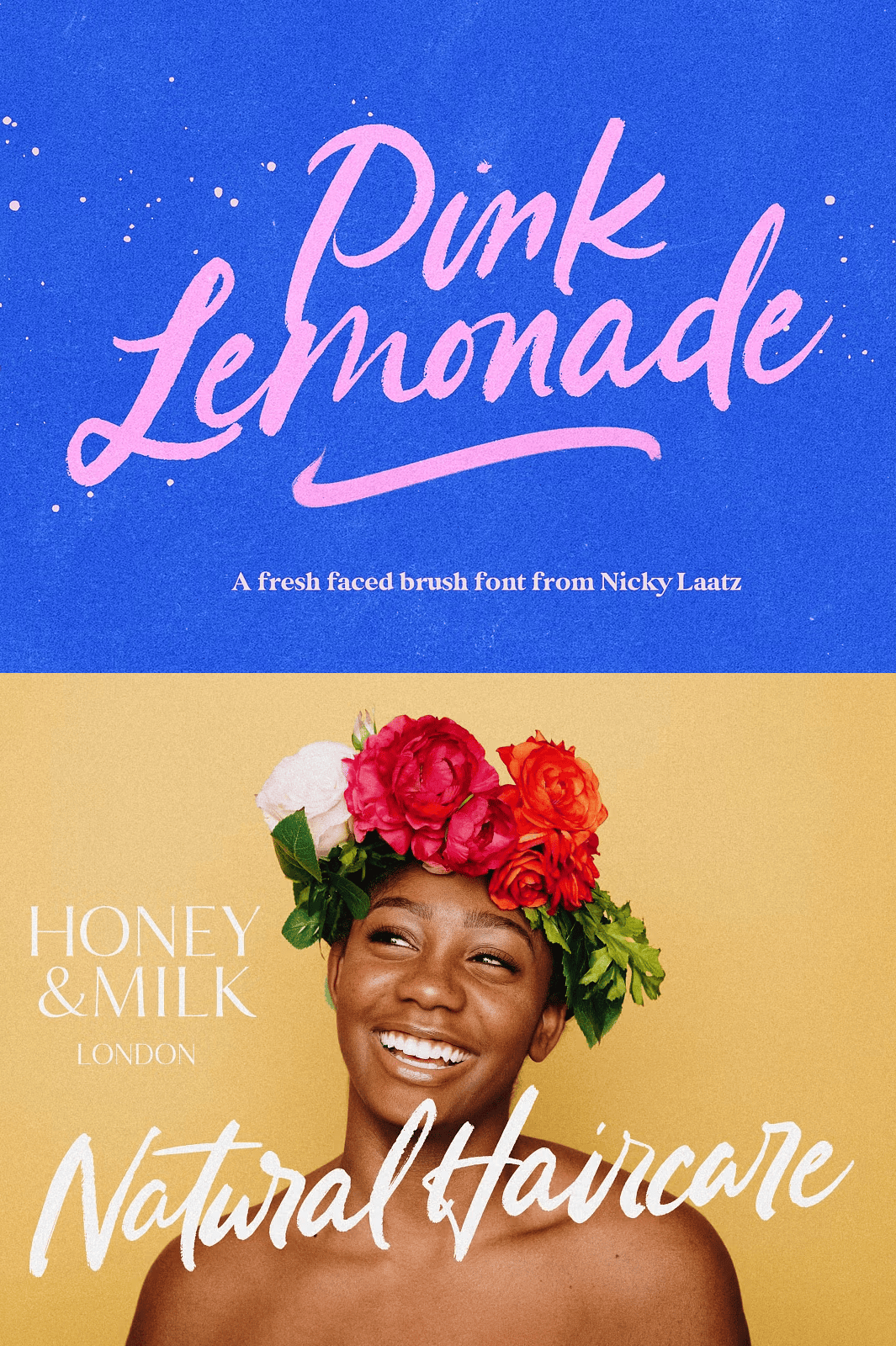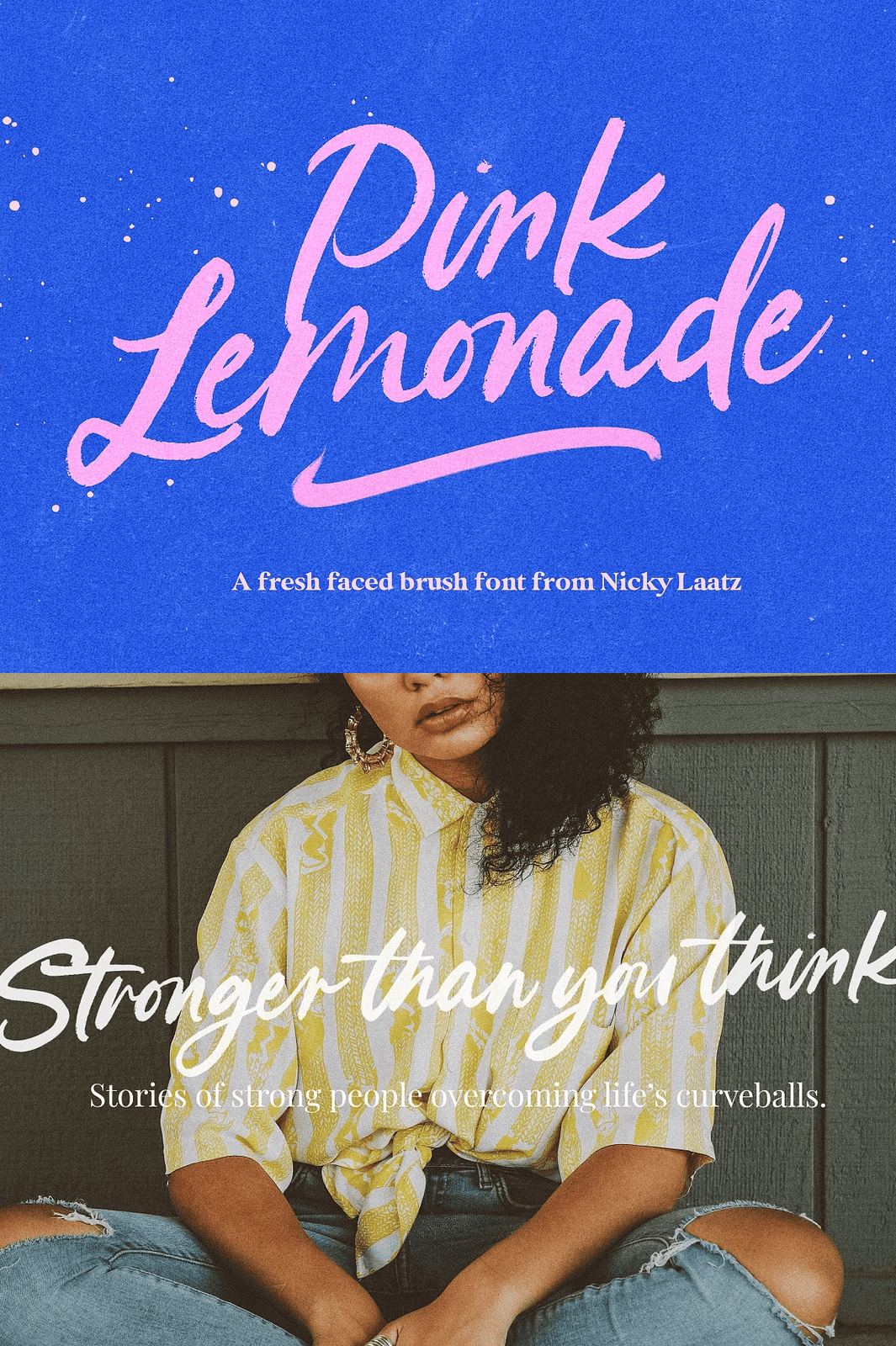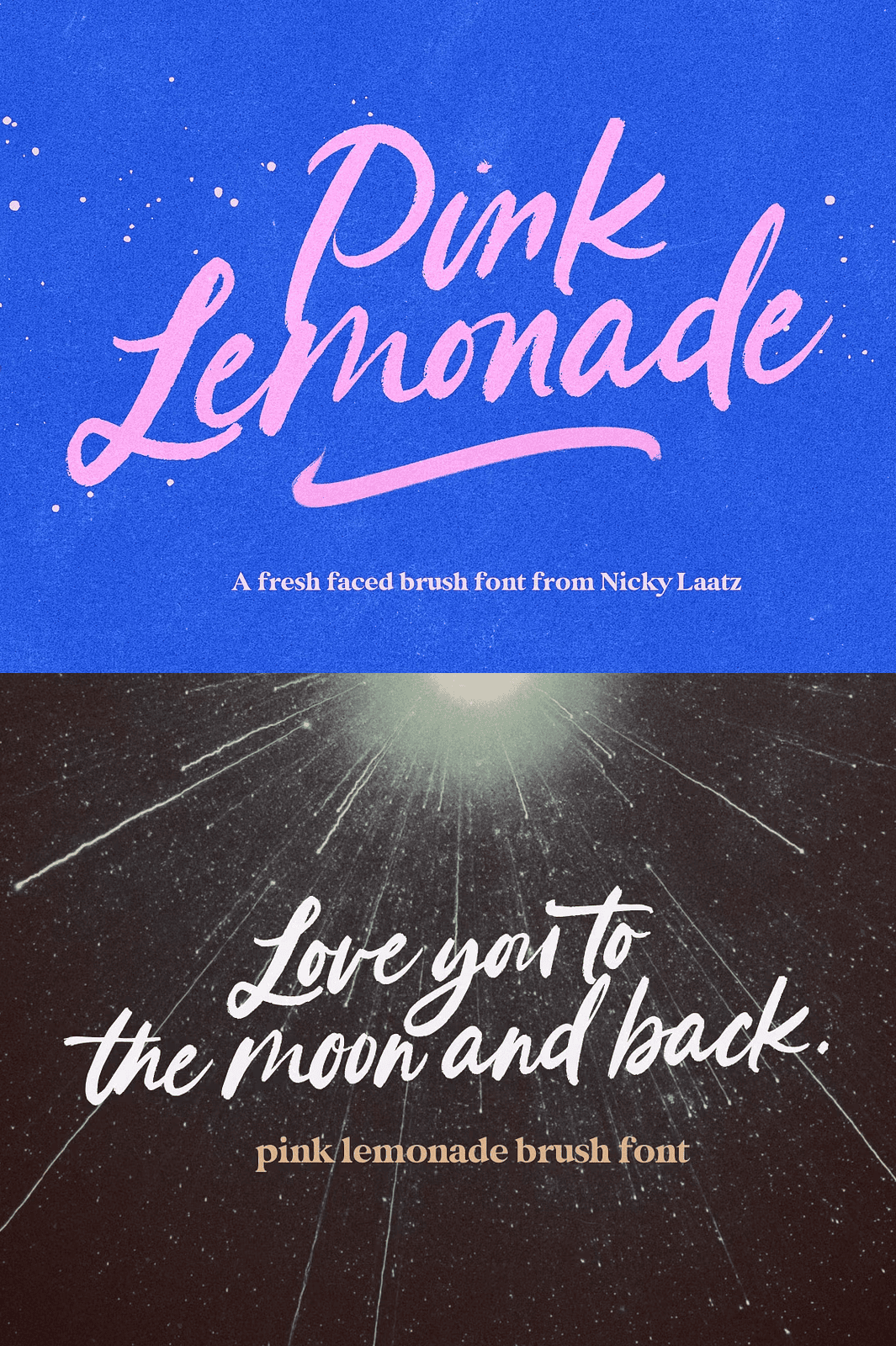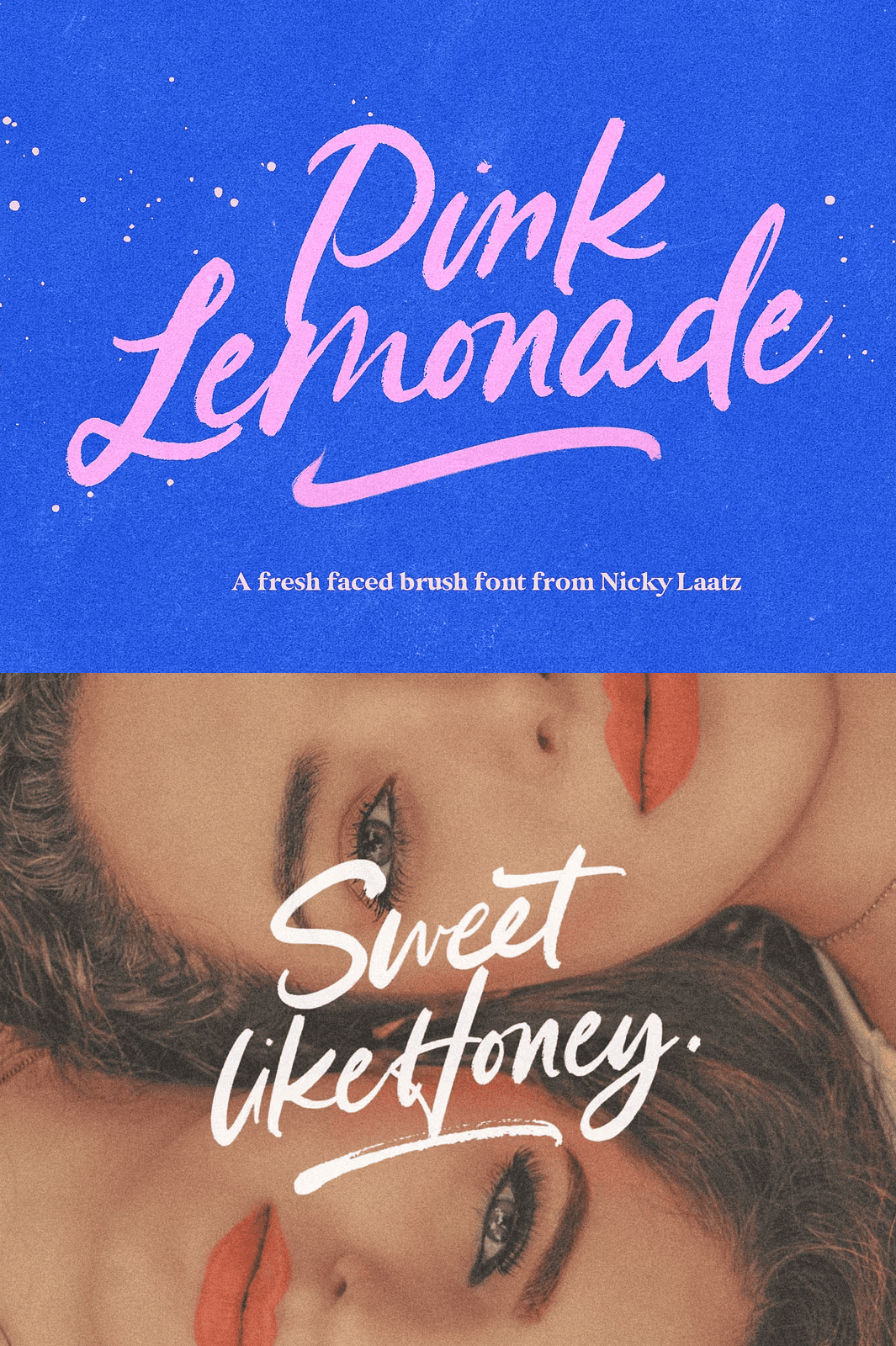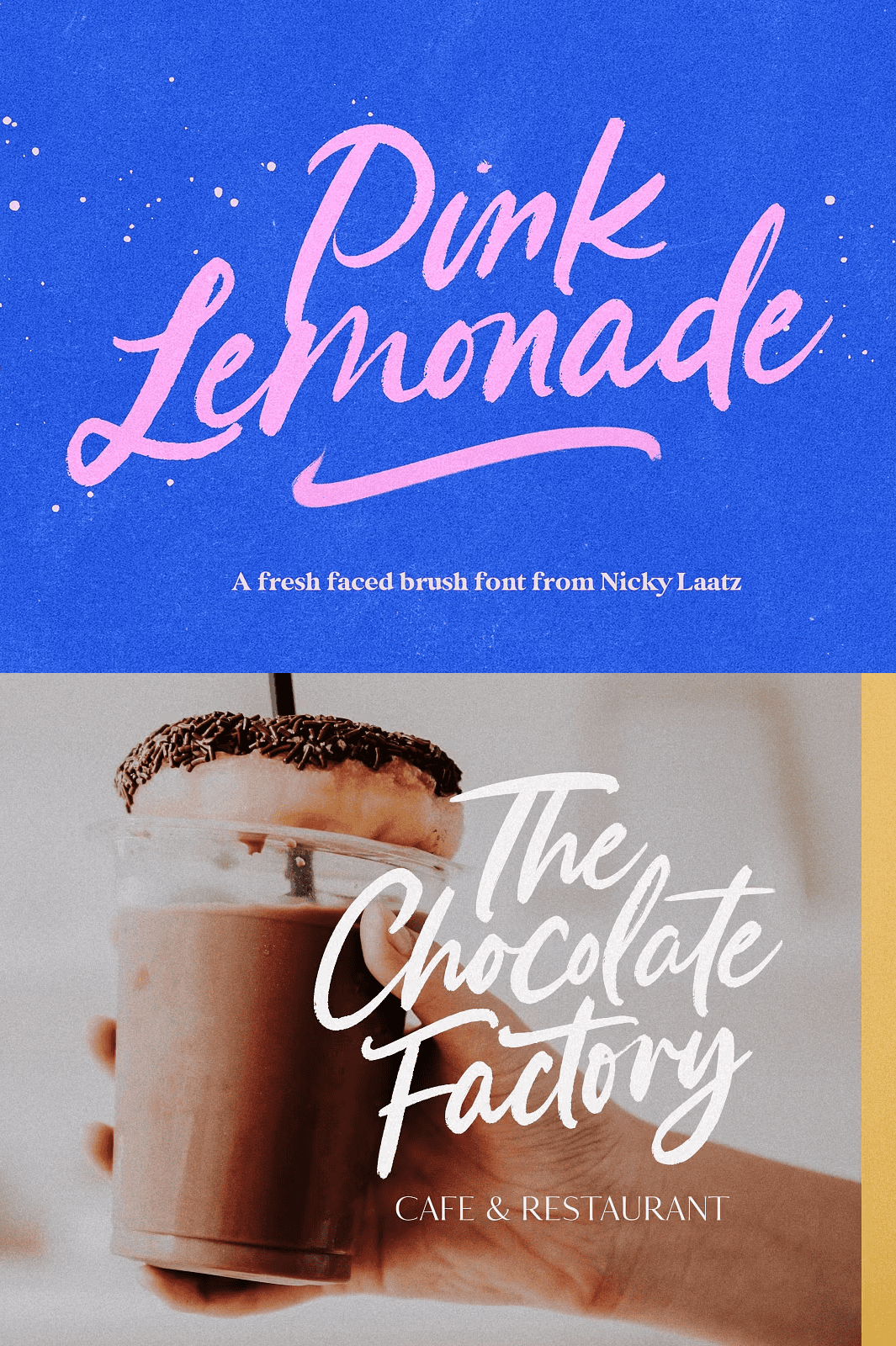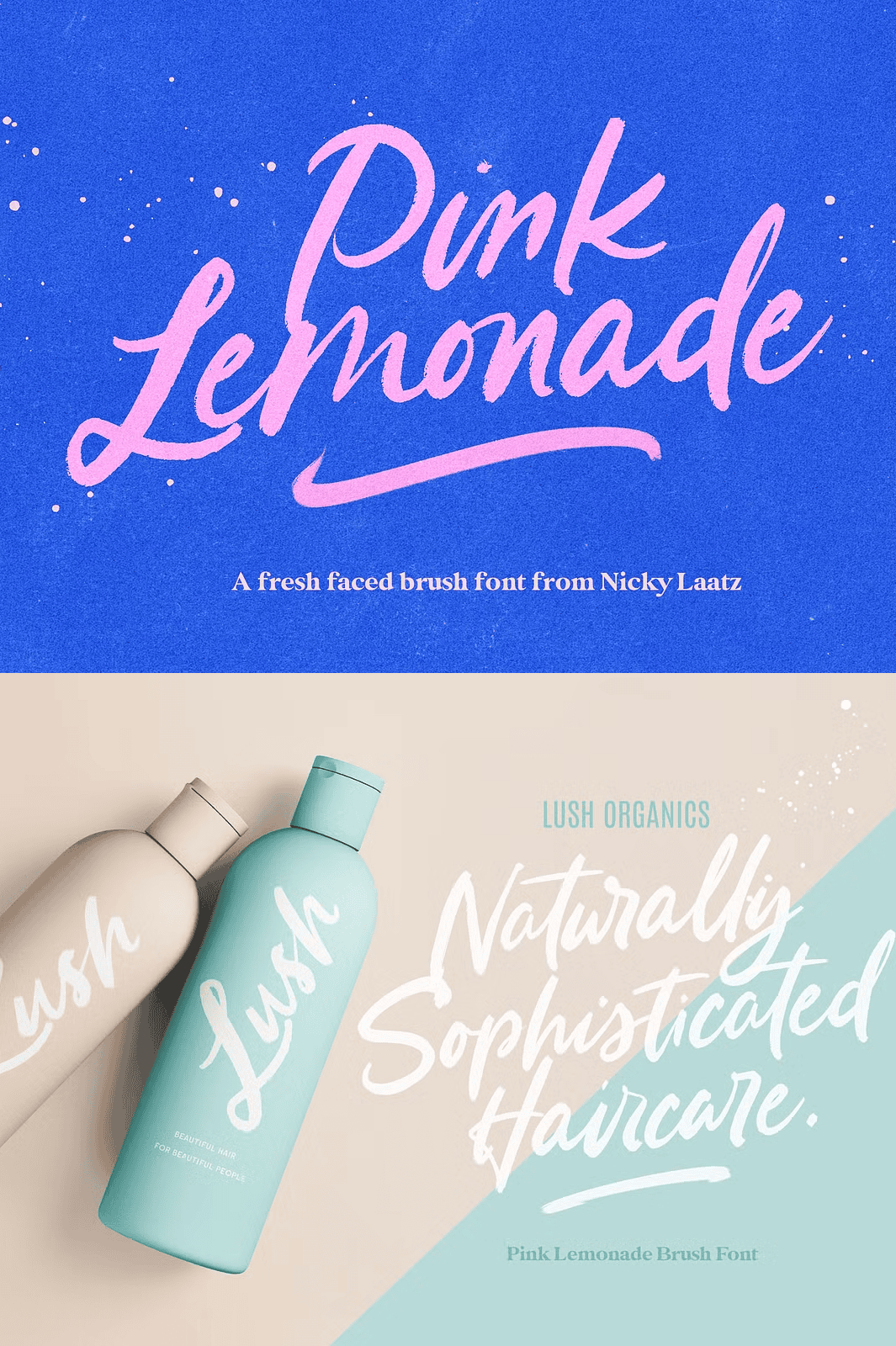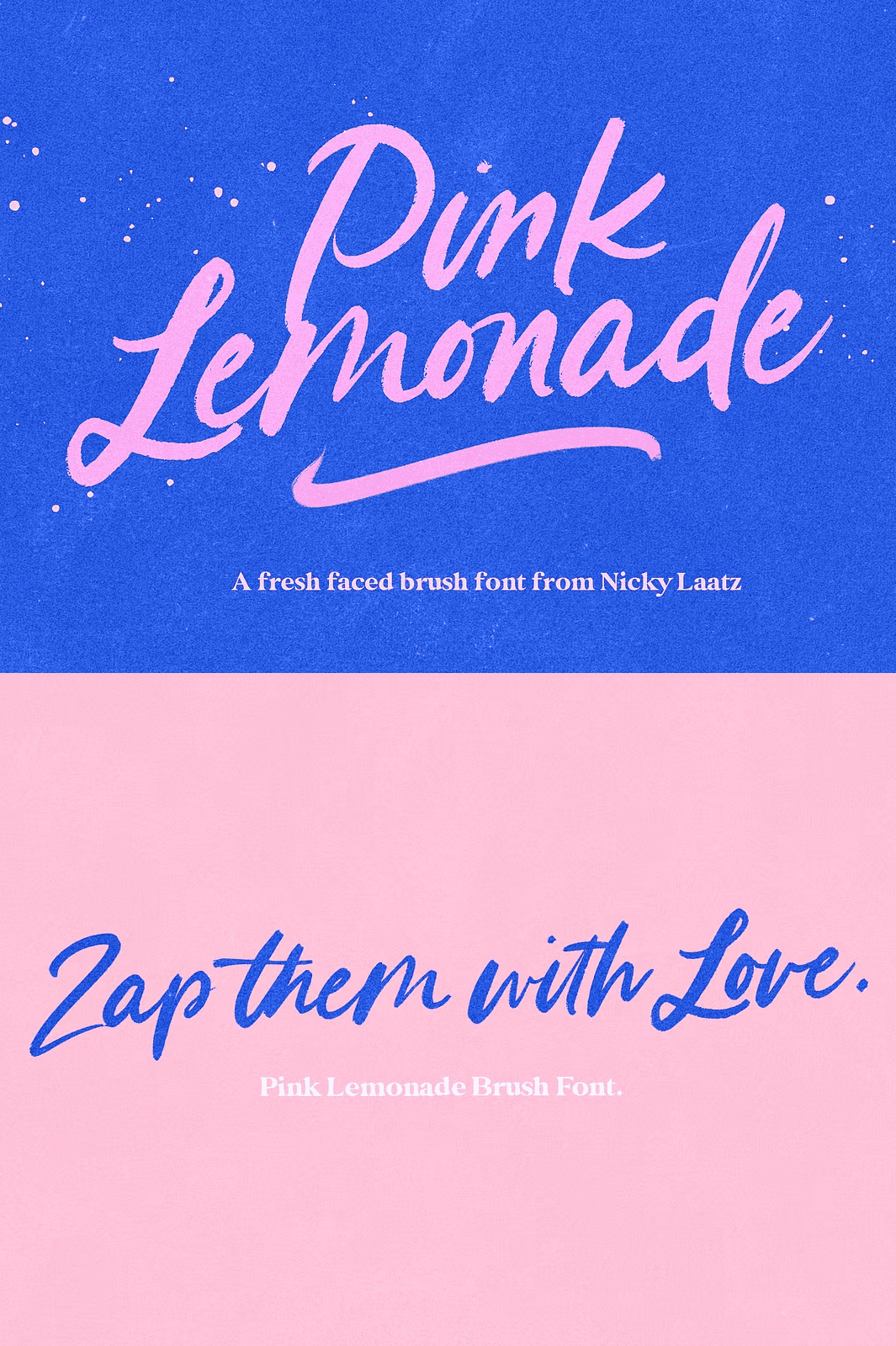
Pink Lemonade Brush Font
Elevate Your Brand with a Fresh, Hand-Painted Aesthetic
Inject vibrant energy into your creative projects with **Pink Lemonade**, a strikingly bold brush font designed to mimic the raw, expressive motion of real brush lettering. This isn’t just a typeface—it’s a visual statement. With its curvy, playful character and delicate texture left intentionally in place, Pink Lemonade brings a tactile, organic feel that turns static text into dynamic art. Whether you’re crafting a headline for a music album, designing packaging for a skincare line, or building a bold website banner, this font ensures your message doesn’t just get read—it gets noticed.
Each stroke reflects the spontaneity and rhythm of hand-drawn expression. The subtle imperfections in pressure, line width, and texture deliver authenticity, making your designs feel personal, energetic, and undeniably fresh. Say goodbye to sterile, predictable fonts—Pink Lemonade thrives where creativity runs wild.
Unleash 45 Natural-Looking OpenType Ligatures
One of Pink Lemonade’s standout features is its collection of **45 meticulously designed OpenType ligatures**. These intelligent character combinations eliminate the robotic feel of standard fonts, creating the illusion that your words were painted in real time like a master artist at work. The ligatures naturally flow between letters, adding rhythm, balance, and visual interest that elevate even simple phrases into works of art.
Switch between ligature-on and ligature-off modes to explore dramatically different styles:
– Turn on ligatures for a fluid, artistic, hand-lettered effect.
– Disable them for a tighter, more structured look with subtle texture.
This dual flexibility gives you full creative control, allowing you to tailor the font’s personality to every project’s unique tone.
Perfect for Brands That Want to Stand Out
Pink Lemonade was built for projects where boldness, charm, and personality matter. It excels in:
– ✅ Beauty and cosmetic branding
– ✅ Music and entertainment poster design
– ✅ Magazine layouts and editorial spreads
– ✅ Book and cookbook covers
– ✅ Sporting brand identities and event promotions
– ✅ T-shirt graphics, merchandise, and apparel design
– ✅ Website headers, banners, and digital advertising
Its playful yet elegant structure brings warmth and approachability, making it ideal for lifestyle brands, startups, and creative entrepreneurs who want to build a memorable visual identity.
Don’t just use a font **make a statement**. With Pink Lemonade, your words become visual experiences. Create eye-catching posters, bold merch designs, or elegant book covers that speak with character, charm, and flair.
Design Tip: Pair Pink Lemonade with clean, minimal sans-serif fonts like Montserrat or Lato for contrast. Use the ligatures to create dynamic headlines, and experiment with color and layering to enhance the brush effect in digital and print media.